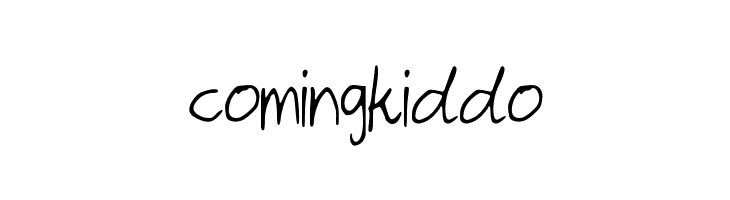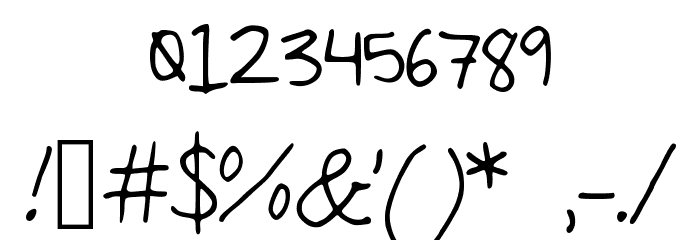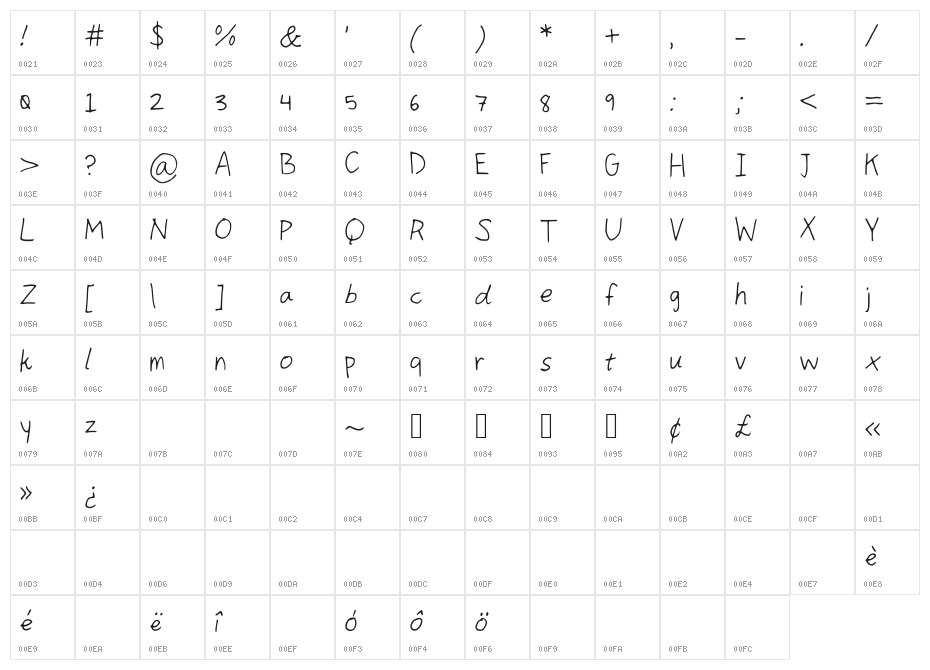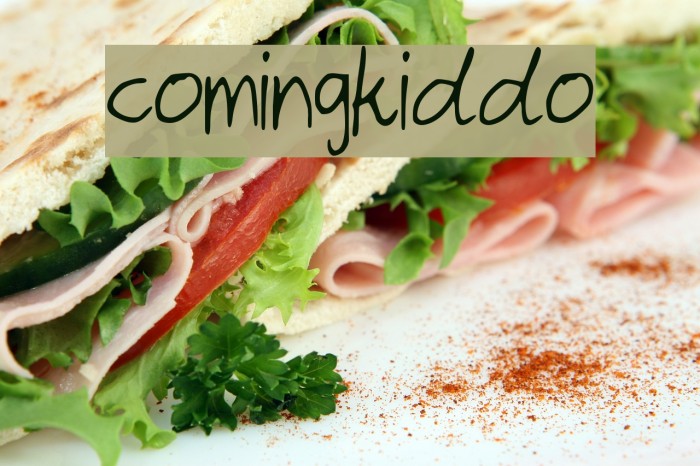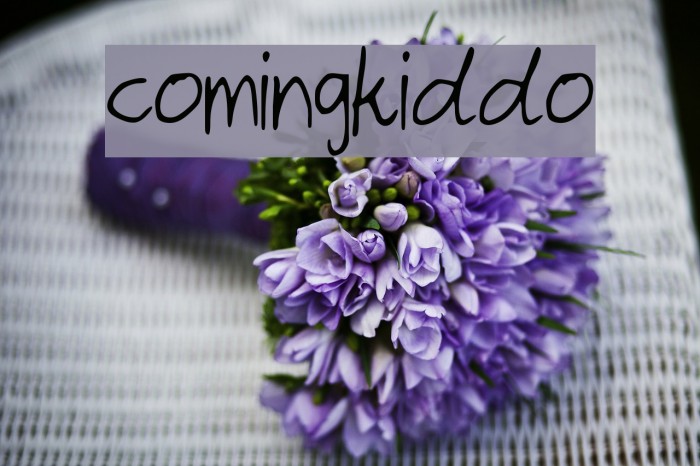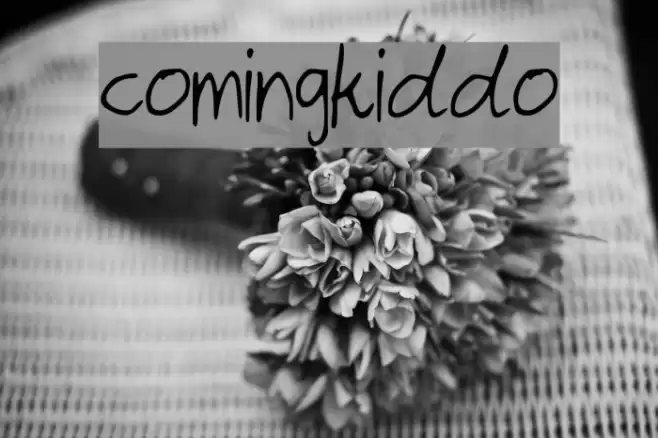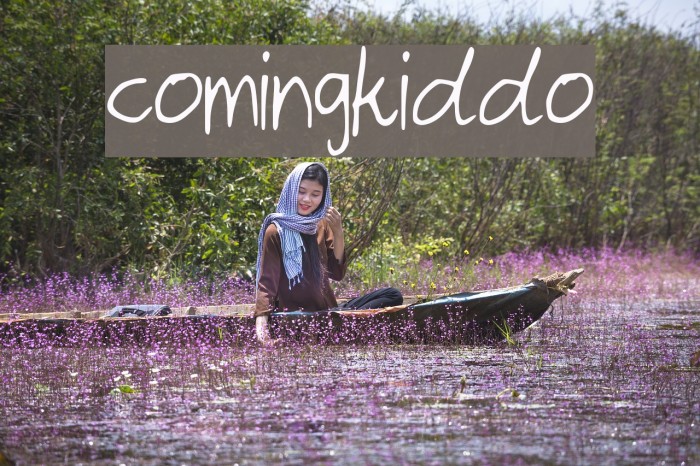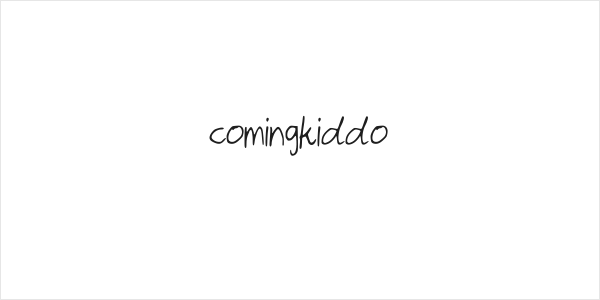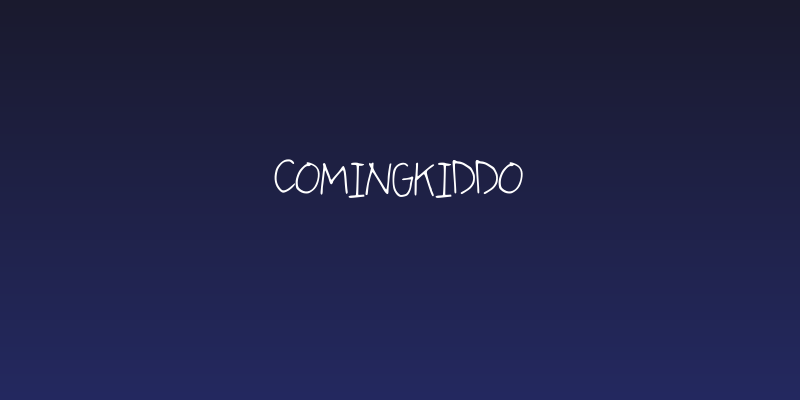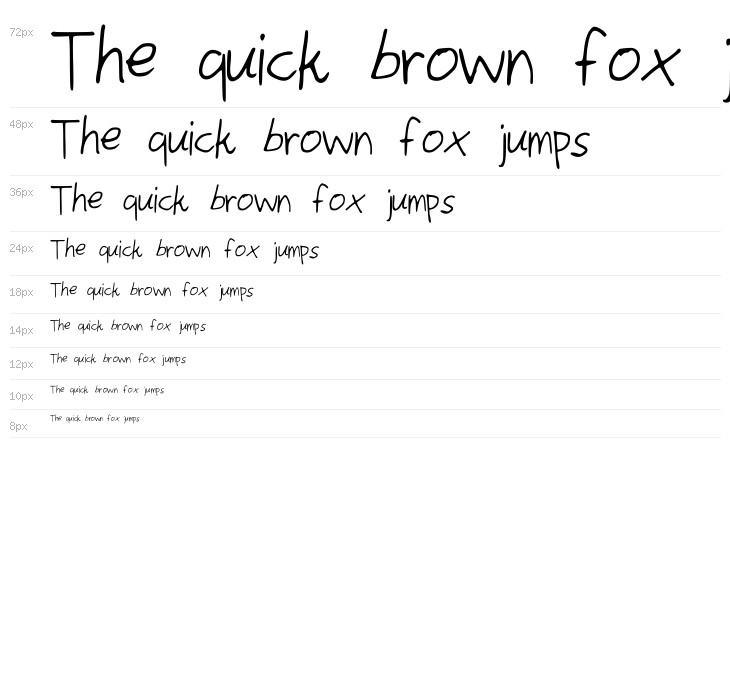
comingkiddo Font
comingkiddo Description
This font exhibits a playful and casual handwritten style, characterized by its irregular strokes and informal appearance. The letters are slightly slanted, giving a dynamic and lively feel. The uppercase and lowercase letters maintain a consistent style, with rounded edges and a friendly demeanor. The numbers and special characters follow the same informal aesthetic, making the font suitable for projects that require a personal touch. The overall design is approachable and easy to read, making it ideal for creative and informal applications.